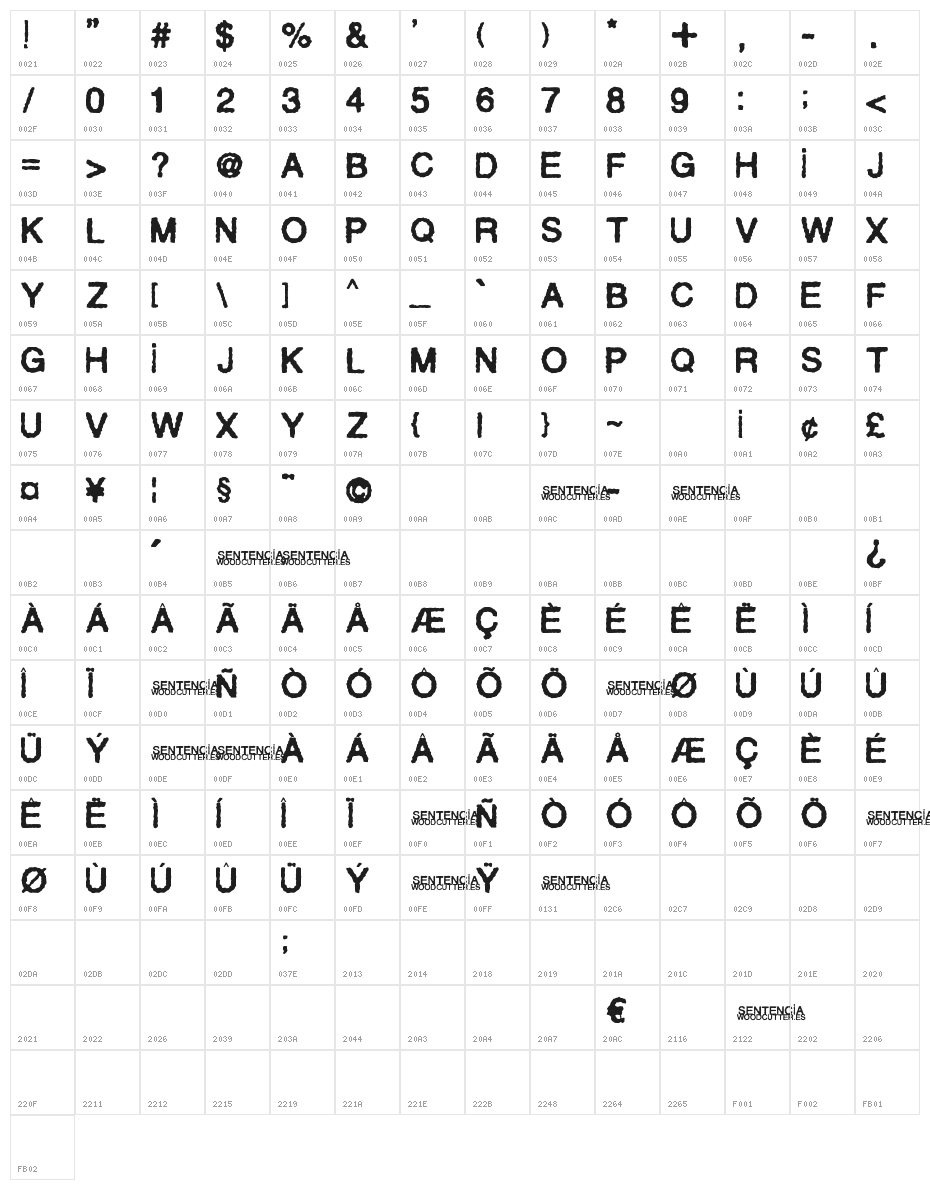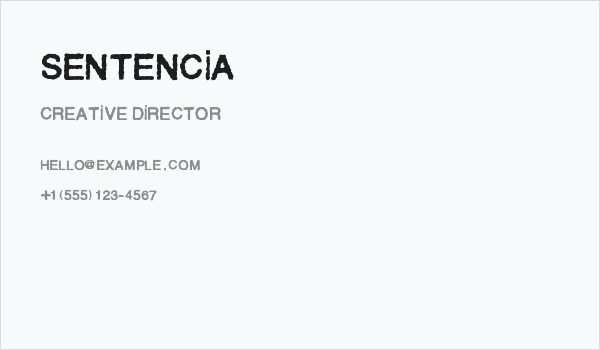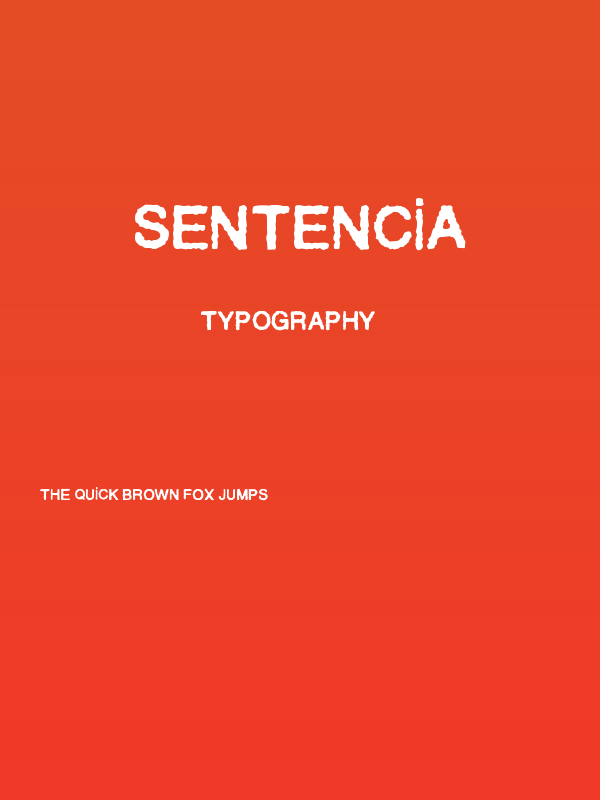
Sentencia Font
Sentencia Description
This font features a bold and rugged appearance, with a textured, distressed style that gives it a vintage, worn-out look. The characters are uppercase and numerals, with a consistent thickness throughout, creating a uniform and impactful presence. The edges are rough and irregular, adding to the font's rustic charm. This style is reminiscent of old typewriter fonts or stamped lettering, making it ideal for projects that require a touch of nostalgia or an industrial feel. The spacing between characters is relatively tight, enhancing the compact and cohesive look of the text.
| Proposed Projects | Ideal for vintage-themed designs, posters, logos, and branding that require a rugged, industrial aesthetic. |